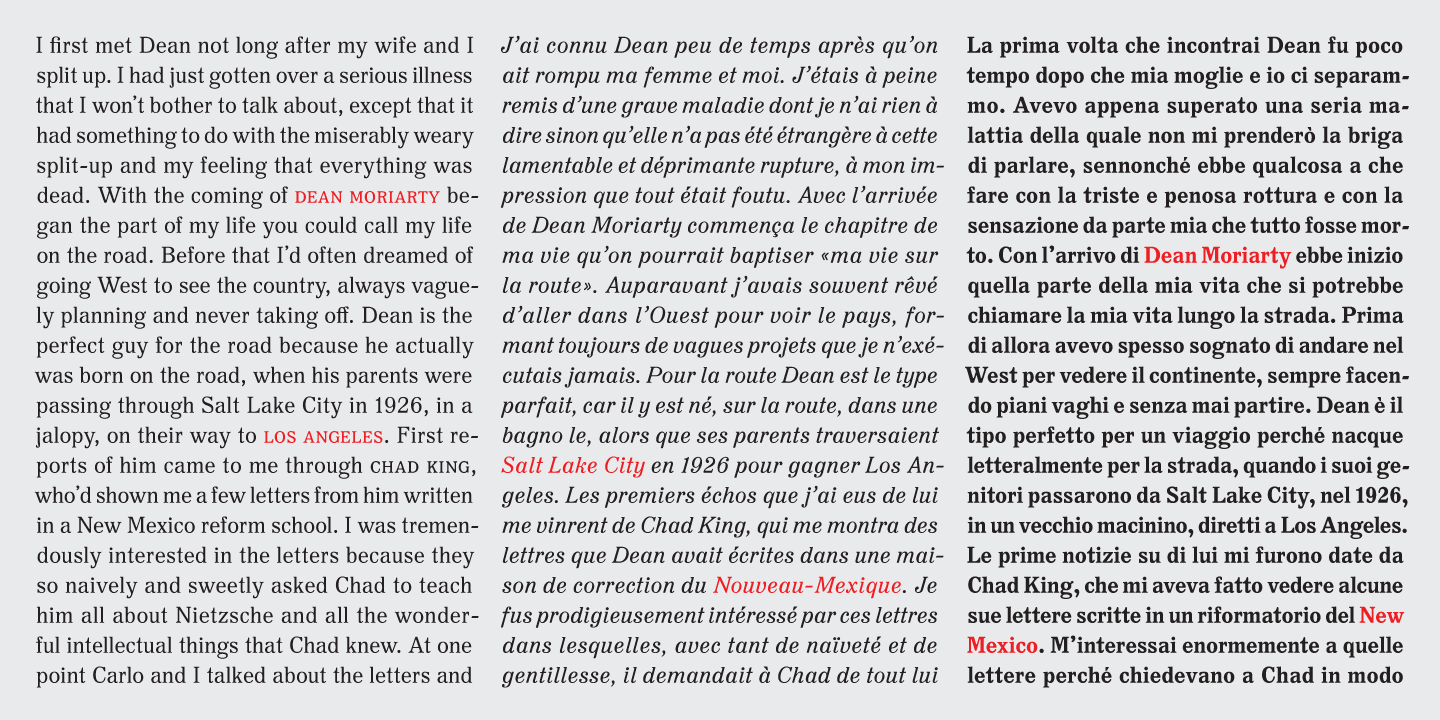
Discover the perfect blend of classical elegance and modern readability with Kner Antikva Font Free Download, a sophisticated serif typeface inspired by traditional Hungarian typography. This beautifully crafted font brings timeless charm to contemporary designs with its balanced proportions and refined details.
Why Kner Antikva Stands Out
1. Hungarian Typographic Heritage
Based on 19th-century Central European type designs
Features distinctive wedge serifs and elegant stroke modulation
Maintains excellent readability at various sizes
2. Exceptional Design Versatility
Perfect for:
Book typography and editorial design
Cultural institution branding
Wine labels and premium packaging
Stationery and formal invitations
Luxury logo design
3. Premium Typographic Features
Multiple optical sizes for different applications
Extensive character set with historical forms
Perfectly balanced ink traps for print perfection
Includes true small caps
Professional Applications
Kner Antikva Font Free Download excels in:
Museum exhibition graphics
Academic publications
High-end restaurant branding
Literary magazine layouts
Heritage product packaging
Combine with complementary sans-serif for contrast
Designer Tip: Use the display cut for headlines and the text version for body copy in print projects.
Includes historical ligatures
Perfect for recreating vintage book aesthetics
Excellent for Hungarian language projects
Pro Pairing: Combine with a neutral grotesque like Akzidenz-Grotesk for contemporary projects that need a touch of tradition.
Why Choose Kner Antikva: Unlike generic serifs, this typeface offers authentic historical character while maintaining perfect functionality for modern design applications. Its distinctive personality makes it ideal for projects requiring sophistication with cultural depth.